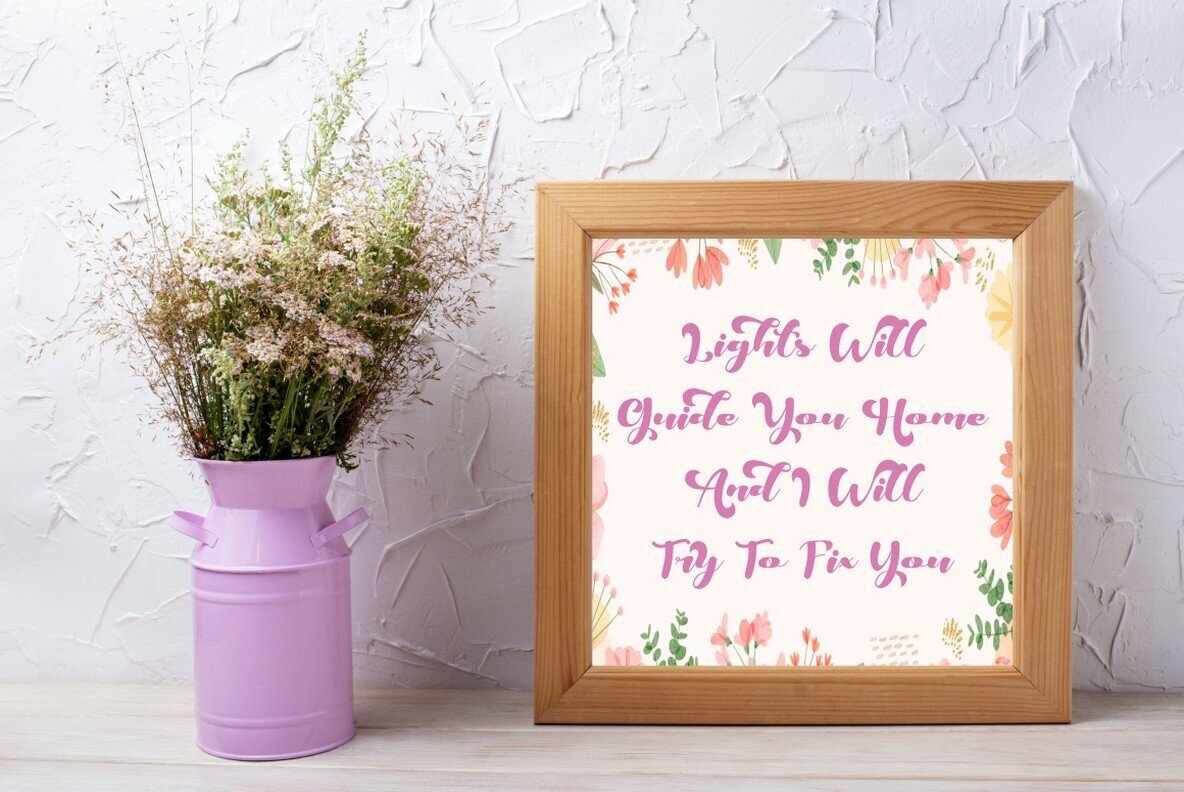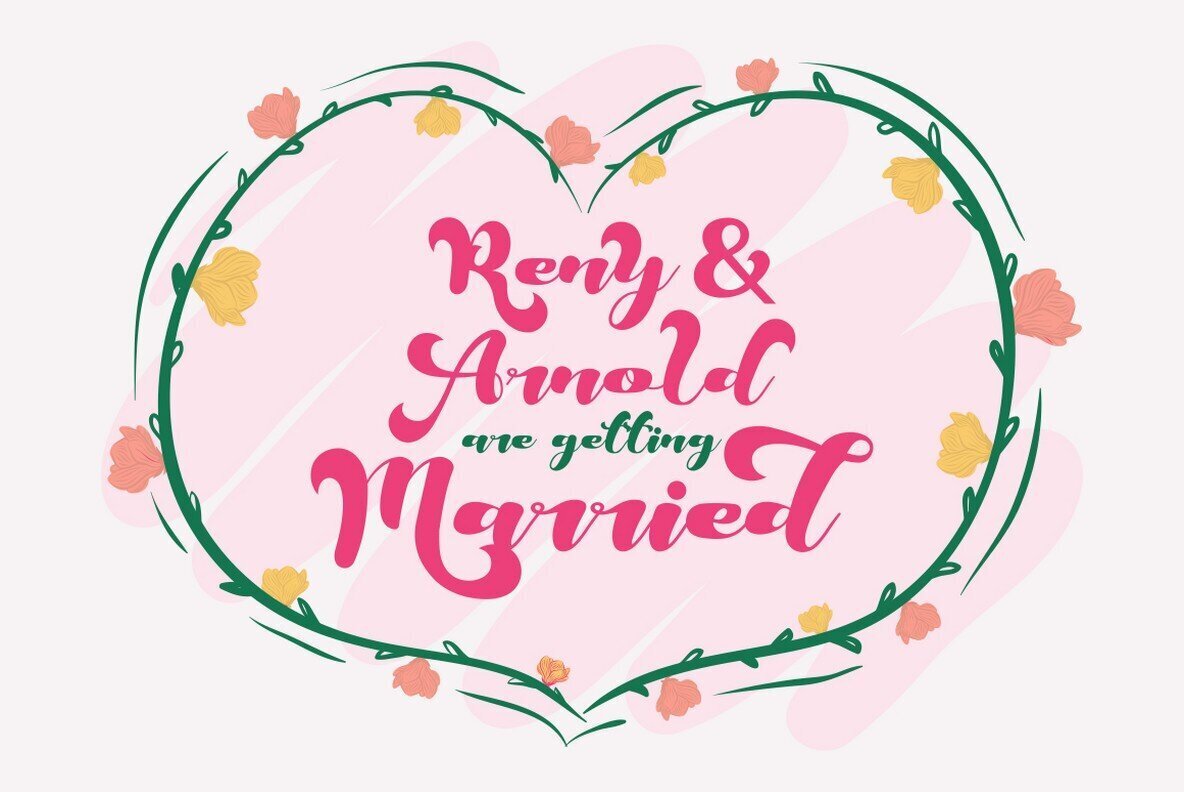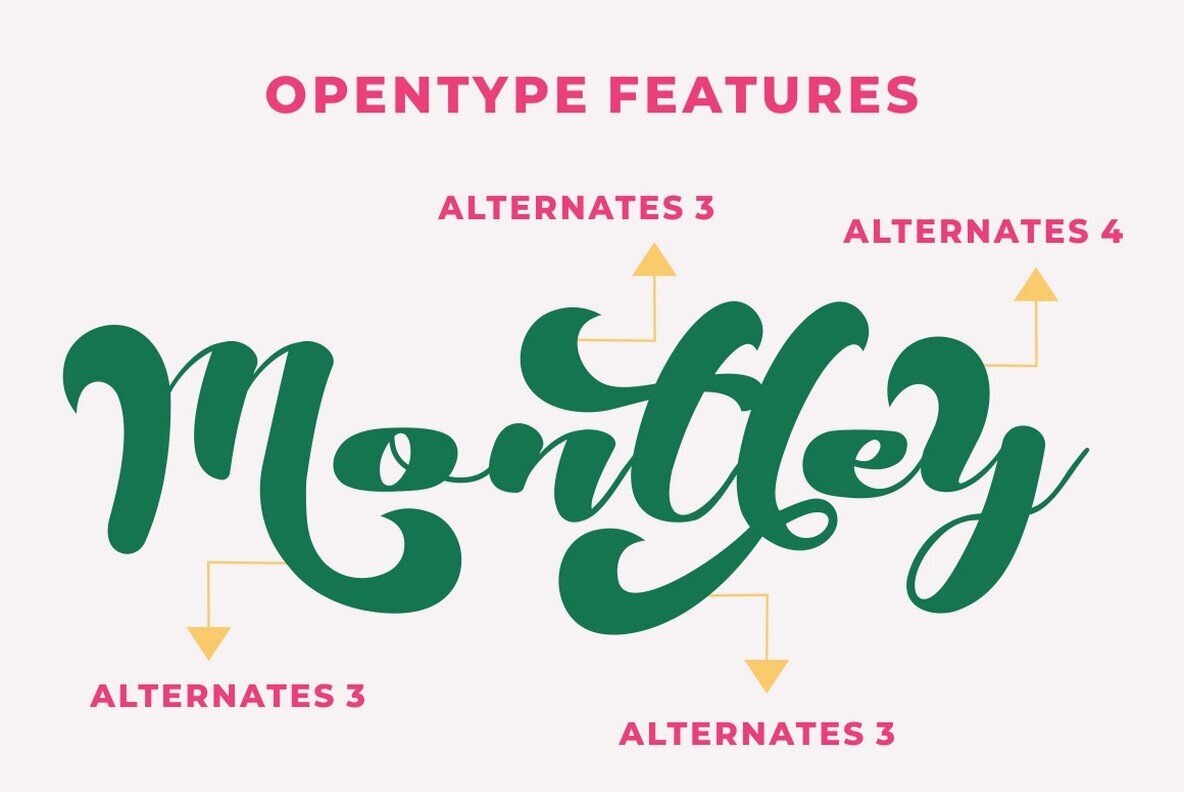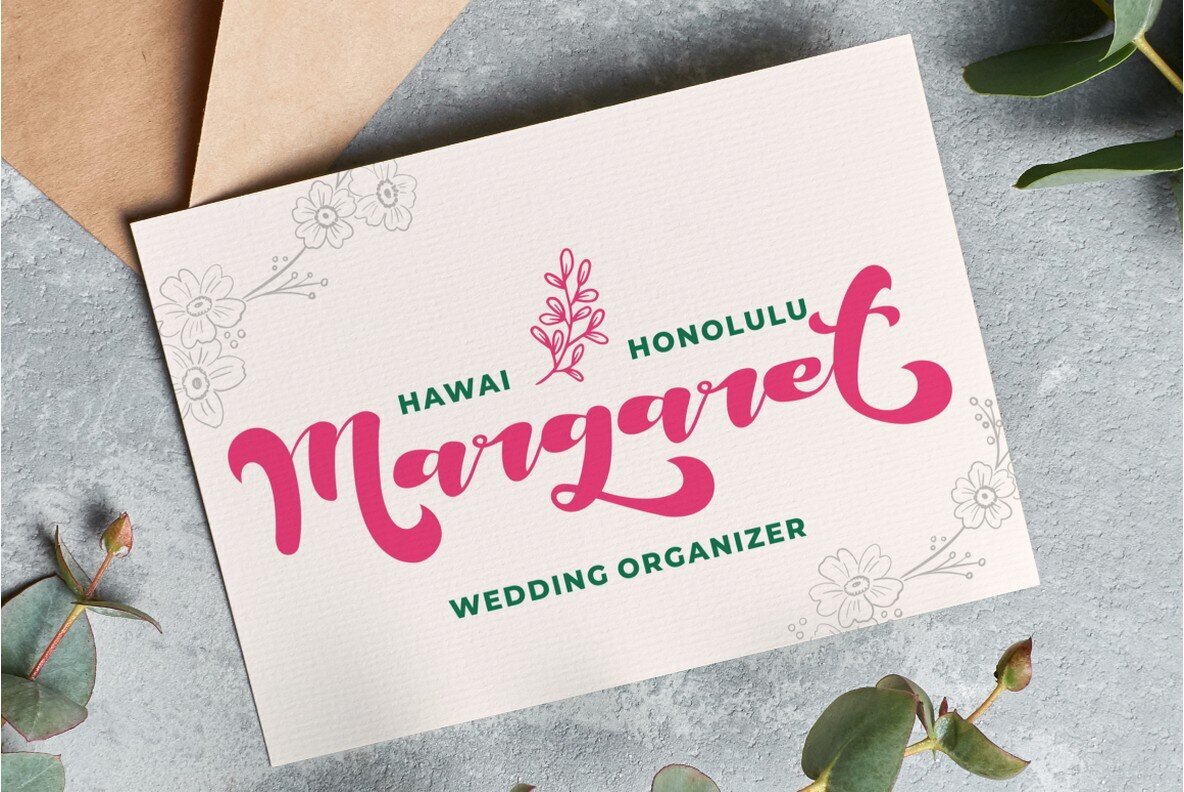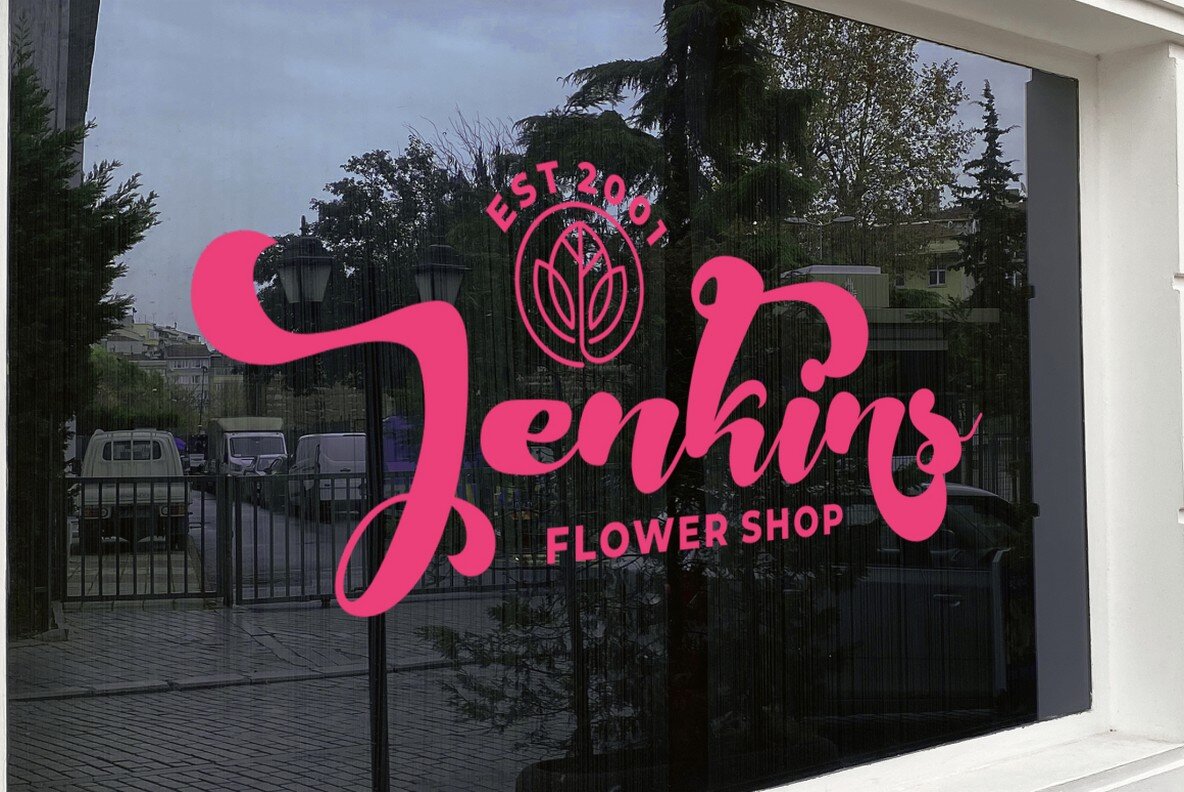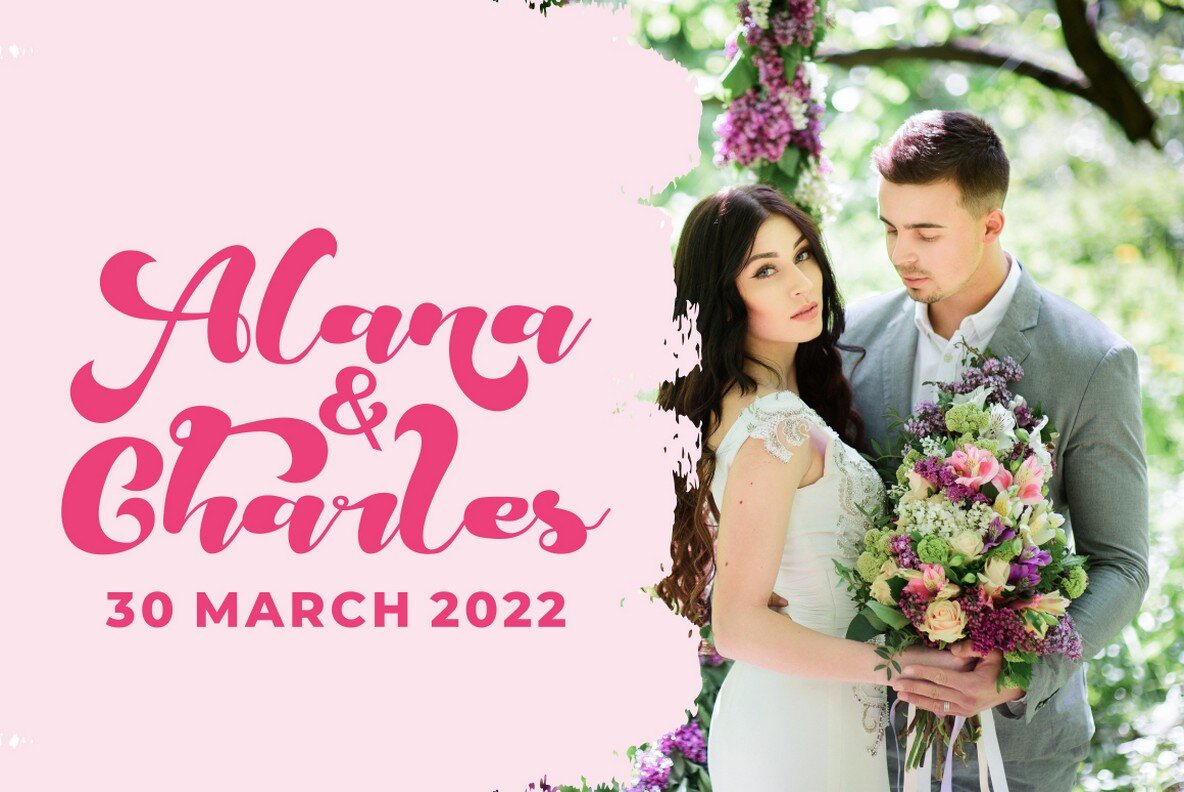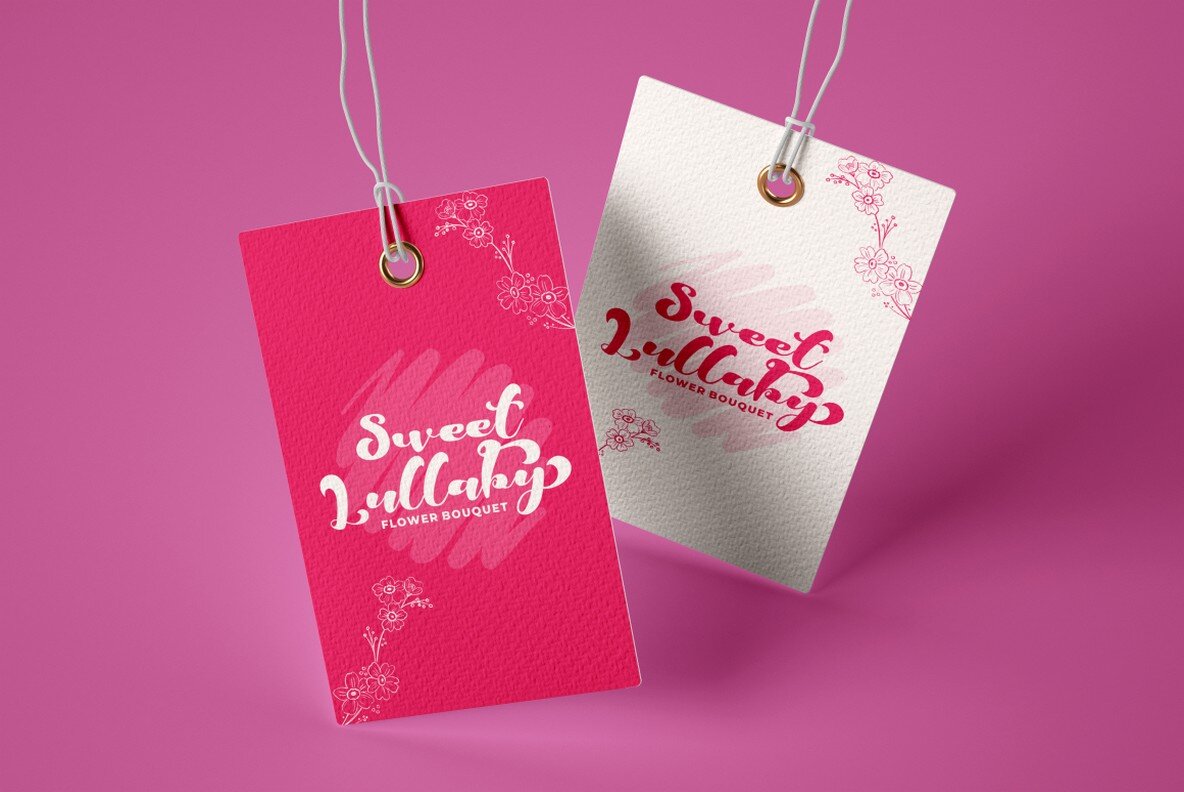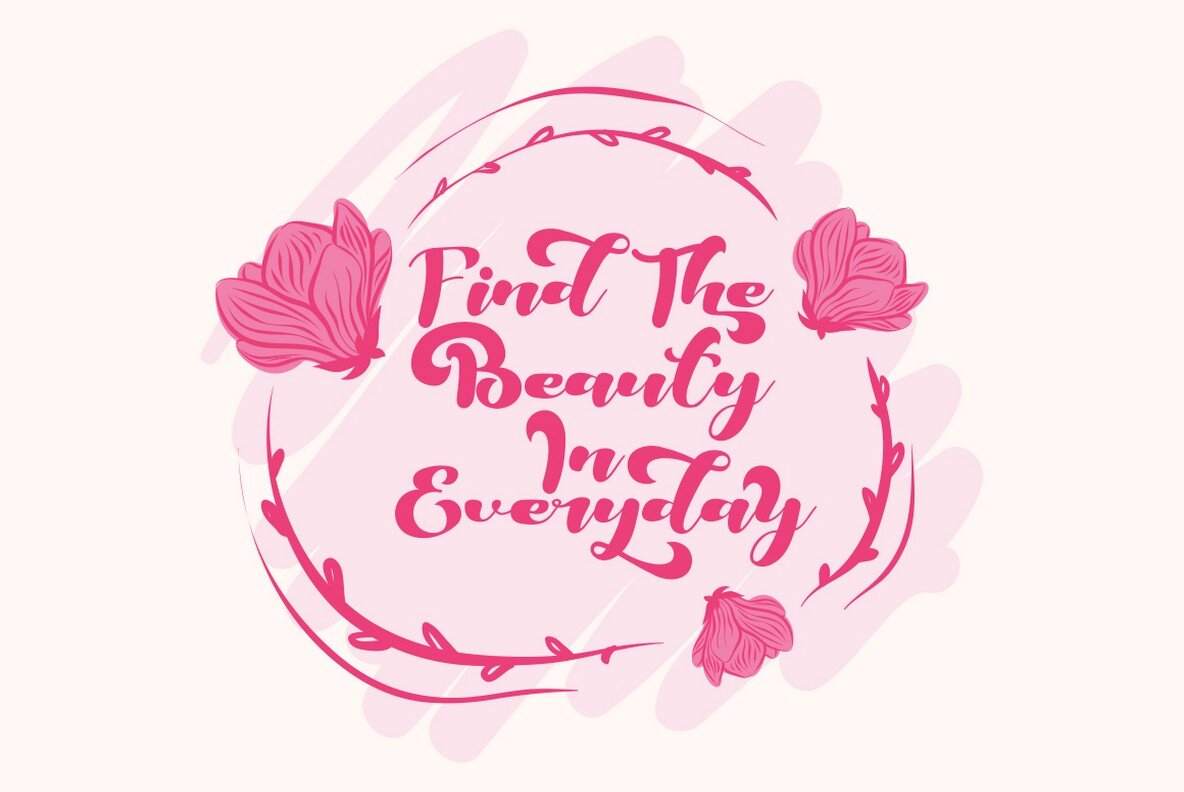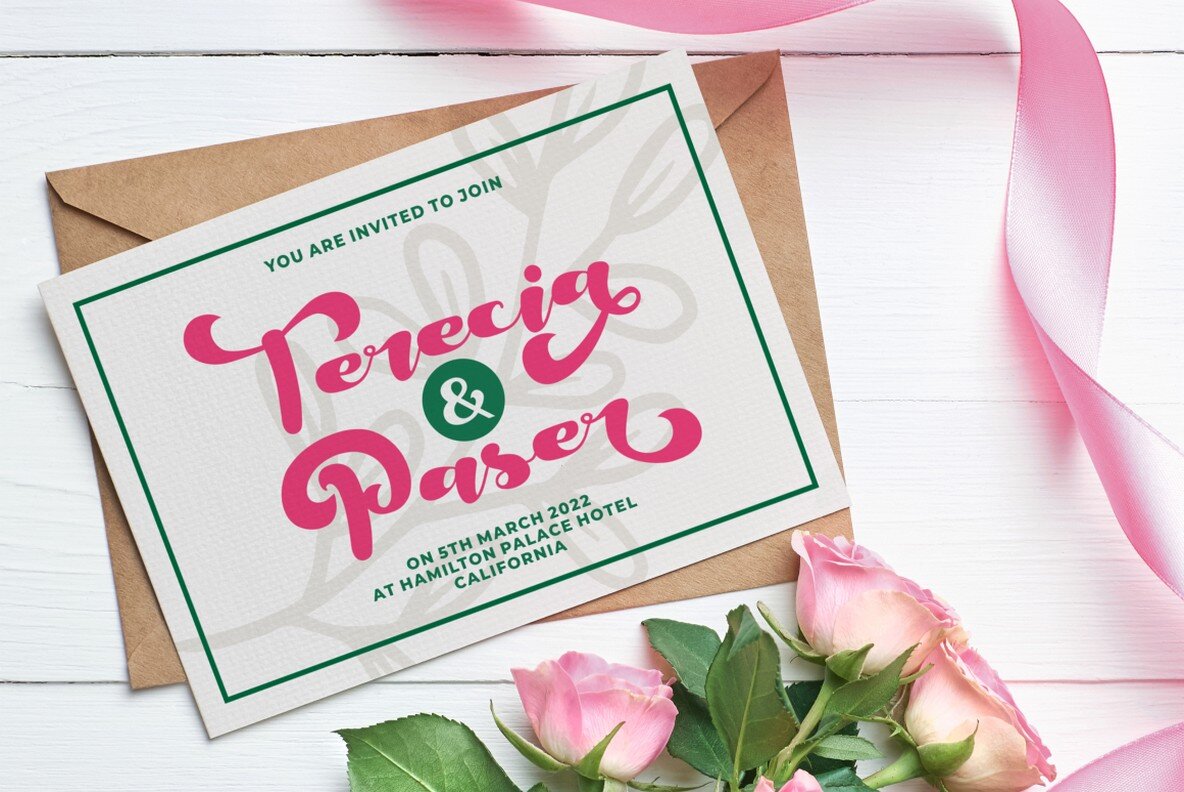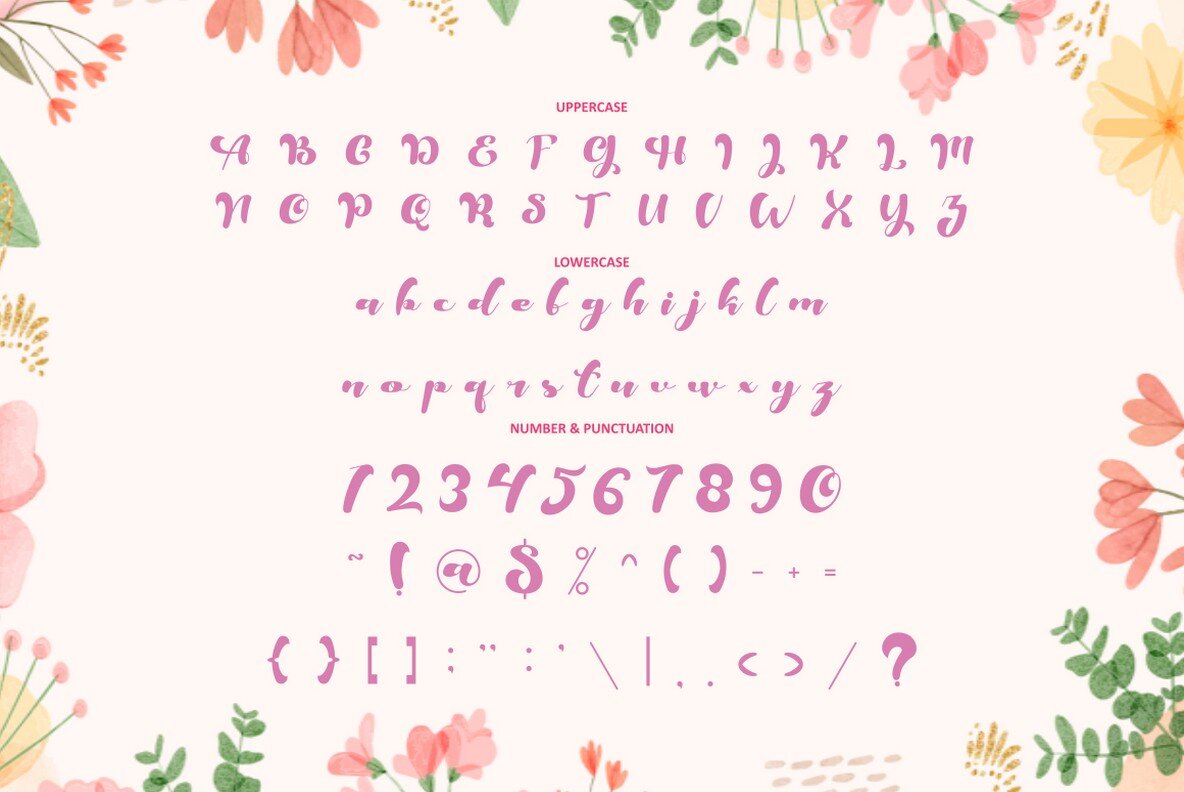
Mellania Script Font
Mellania Script
Mellania Script is a bold script font that makes a statement. This font is inspired by magazine titles, posters, and streetwear lettering styles, so it has a modern look and feel. The Knight come with opentype feature like a lot of alternates which gives you more options to customize your logos or badges.